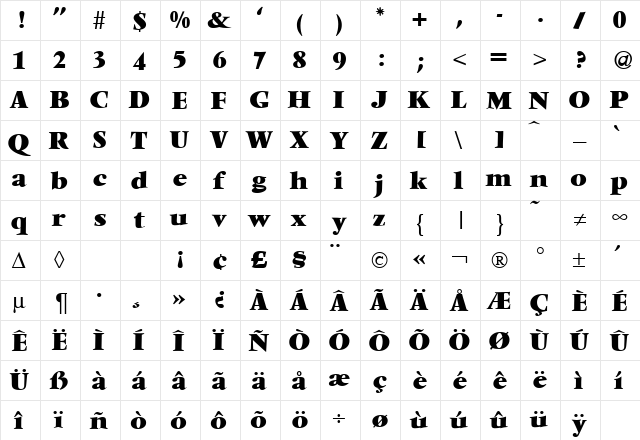
VendomeTwoExtrabold Regular Font Preview
VendomeTwoExtrabold Regular
Design Context for VendomeTwoExtrabold Typeface
VendomeTwoExtrabold is a composed and adaptable typeface that performs quietly and consistently across a wide range of design contexts. Its bold stroke weight gives it real presence on the page.